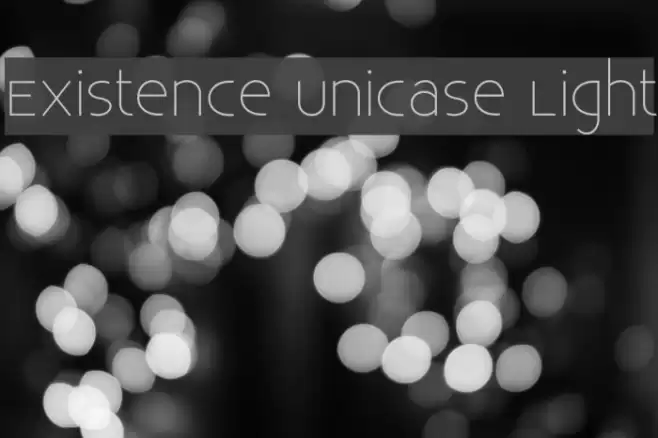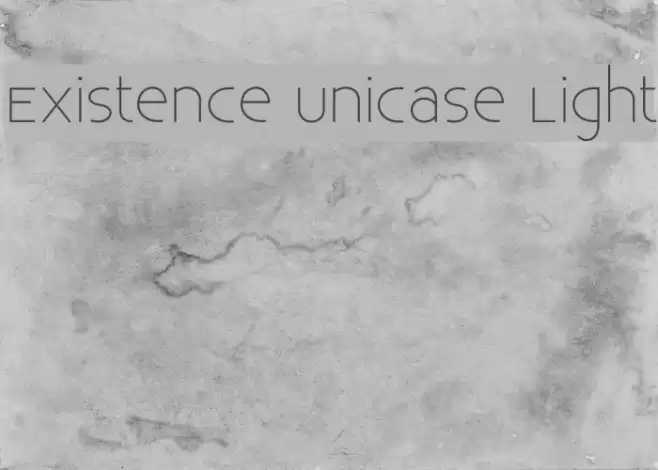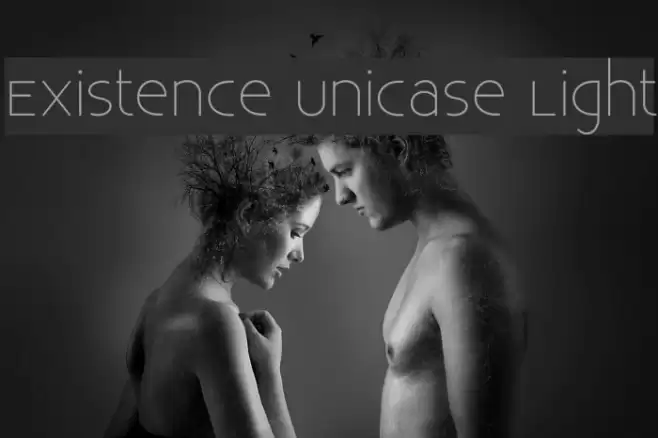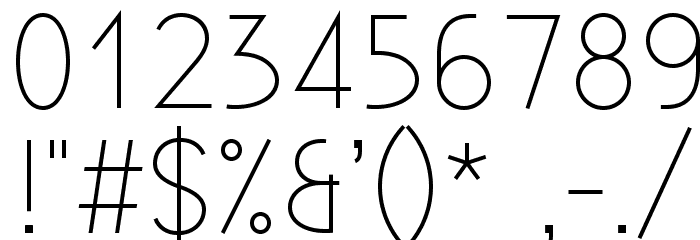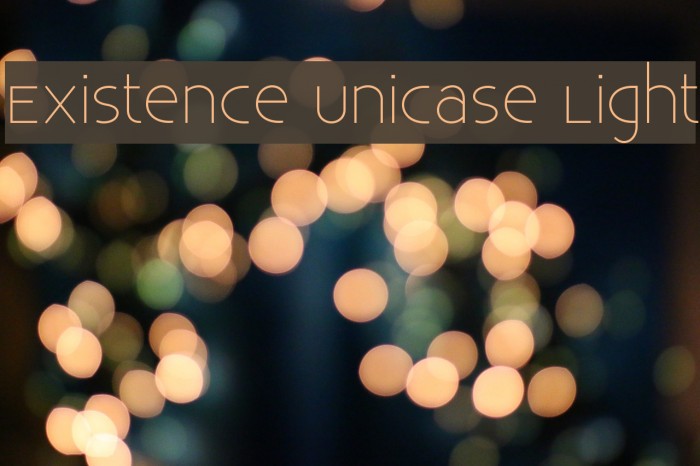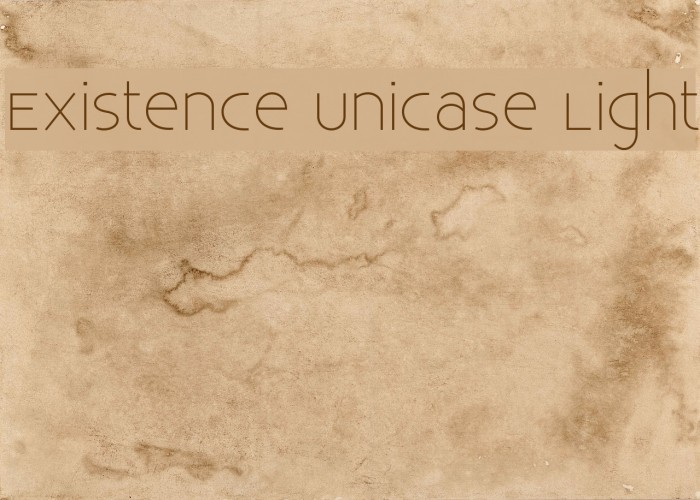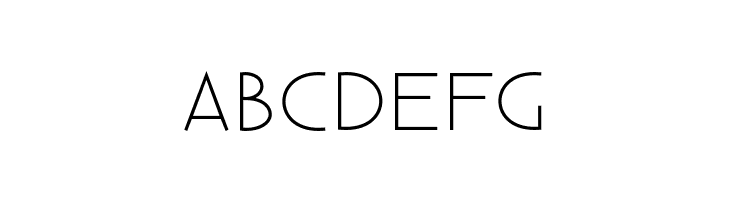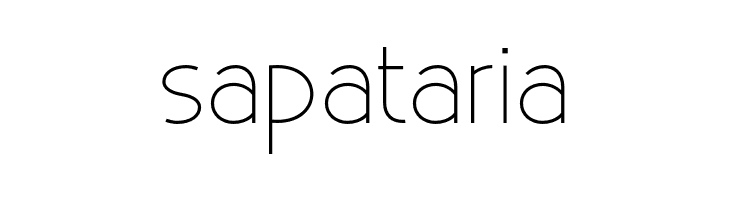
Existence Unicase Light Font
Existence Unicase Light Description
This font features a clean and minimalist design with a focus on simplicity and readability. The characters are uniformly thin, with consistent stroke widths that contribute to a light and airy appearance. The uppercase and lowercase letters maintain a harmonious balance, while the numerals and special characters are crafted to match the overall aesthetic. The font's geometric shapes and smooth curves give it a modern and elegant feel, making it suitable for a wide range of applications. Its uniformity and clarity make it ideal for projects that require a sleek and contemporary look.
A clean, minimalist font with uniform thin strokes and a modern aesthetic from Sans Serif fonts.
- Proposed Projects: Ideal for branding, editorial design, websites, and minimalist graphic design projects.